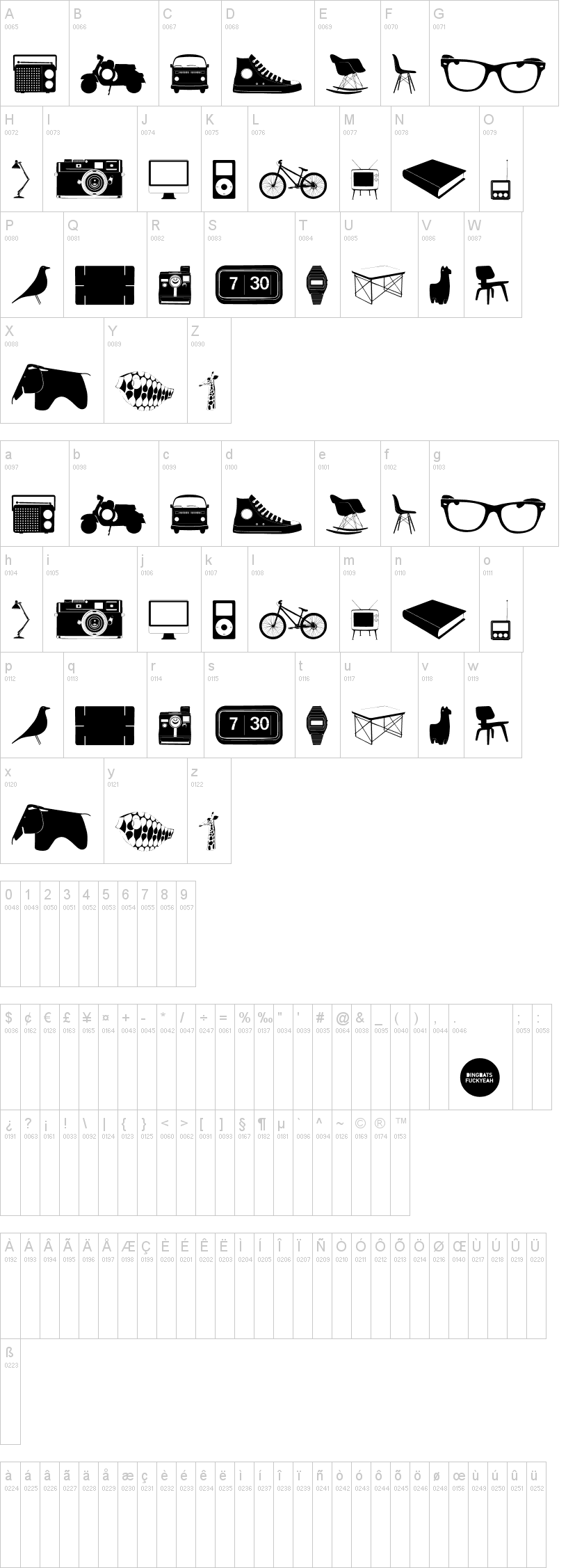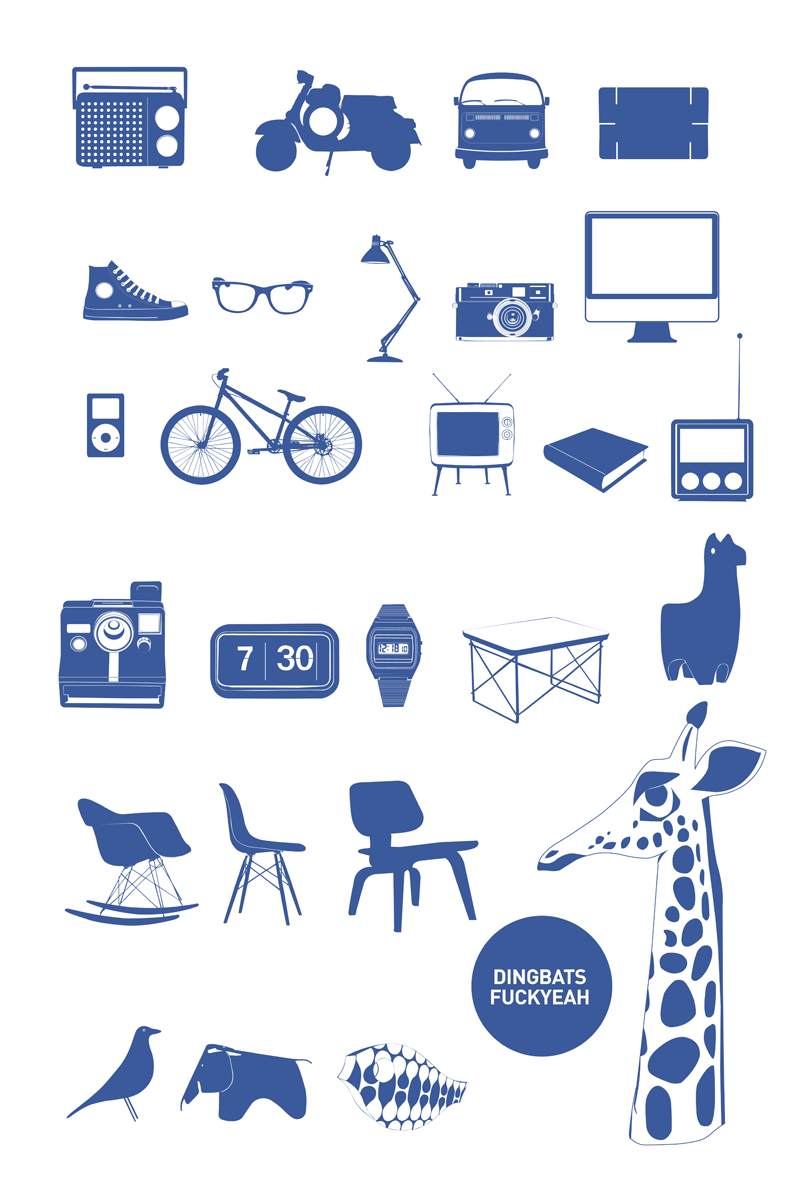
Шрифт Cool Stuff
a cool stuff on my mind and I have great respect for product designers like Charles Eames and Singgih Kartono so I made iconographic of their products, thank you for inspiring